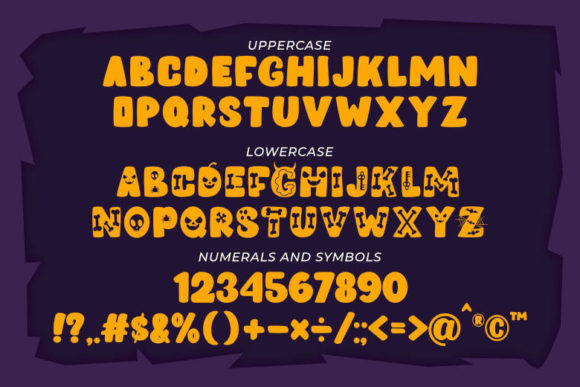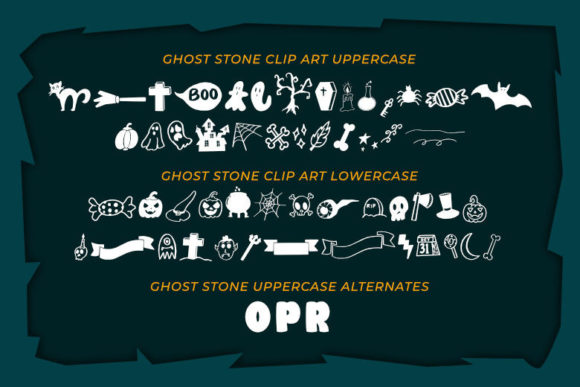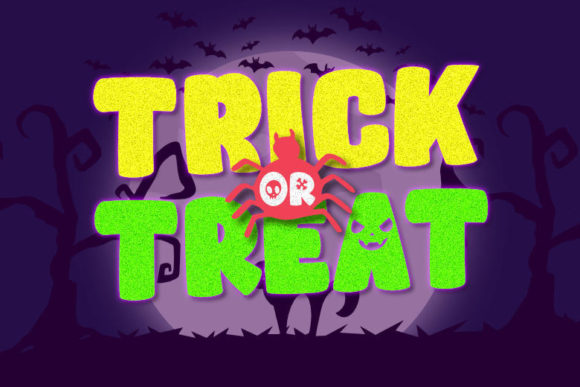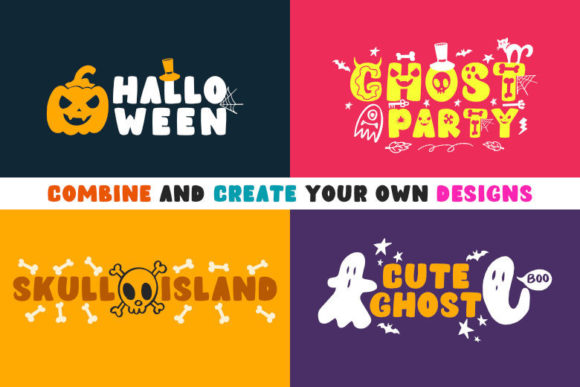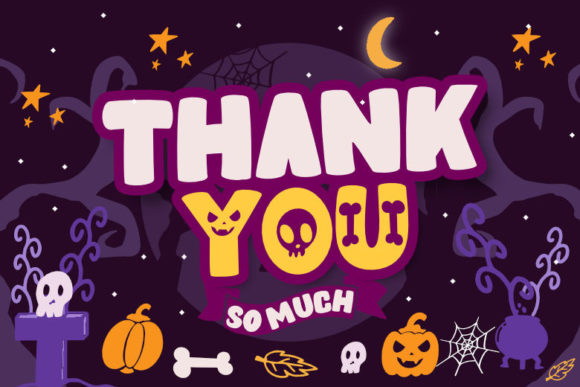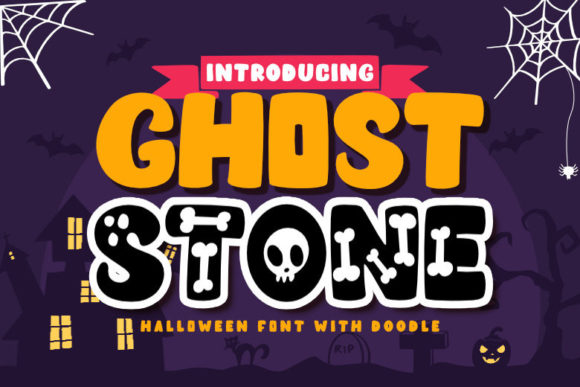
Unleash the Spookiness: Introducing the Ghost Stone Font
Are you ready to add a dash of spookiness to your designs? Look no further than the Ghost Stone Font, a fun and playful duo font that is perfect for Halloween enthusiasts and designers alike. This masterfully designed font duo features a scary theme that is sure to bring your Halloween ideas to the highest level.
What is Ghost Stone Font?
Ghost Stone is a unique and creative font duo that consists of a display font and a dingbats font. The display font features bold and eye-catching letters, while the dingbats font offers a range of spooky symbols and icons that can be used to add an extra layer of depth and interest to your designs.
Key Features of Ghost Stone Font
- Fun and Playful Design: The Ghost Stone Font is designed to be fun and playful, making it perfect for Halloween-themed designs.
- Scary Theme: The font features a scary theme, complete with spooky symbols and icons that are sure to send chills down the spine.
- Duo Font: The font duo includes a display font and a dingbats font, offering a range of creative possibilities.
Uses for Ghost Stone Font
The Ghost Stone Font is perfect for a range of design projects, including:
- Halloween Invitations: Create spooky and eye-catching invitations for Halloween parties and events.
- Social Media Graphics: Add a touch of spookiness to your social media graphics and posts.
- Signs and Banners: Create eye-catching signs and banners for Halloween events and promotions.
- Crafting Projects: Use the Ghost Stone Font to add a personal touch to your crafting projects, such as scrapbooking and card making.
- Experiment with Different Sizes: Experiment with different font sizes to create a range of effects, from bold and eye-catching to subtle and spooky.
- Combine with Other Fonts: Combine the Ghost Stone Font with other fonts to create a unique and interesting look.
- Use the Dingbats Font: Don’t forget to use the dingbats font to add an extra layer of depth and interest to your designs.
- What is the Ghost Stone Font?: The Ghost Stone Font is a fun and playful duo font featuring a scary theme.